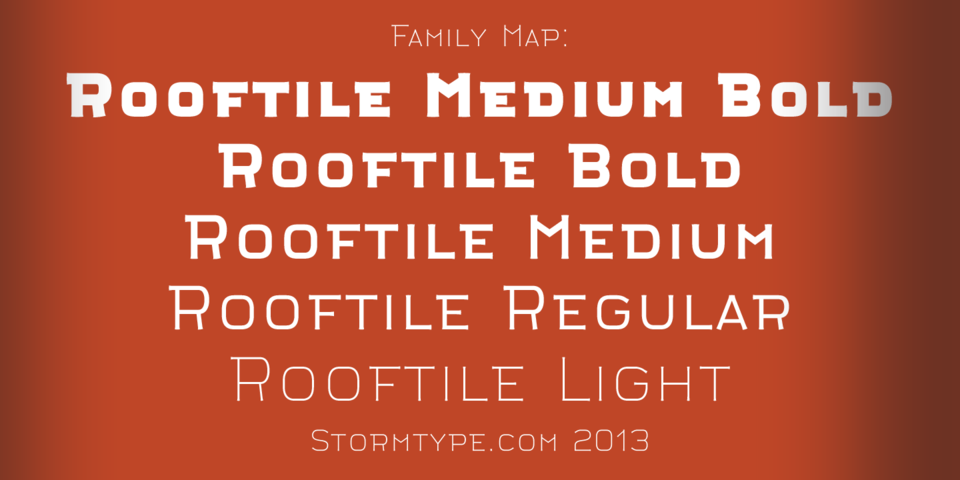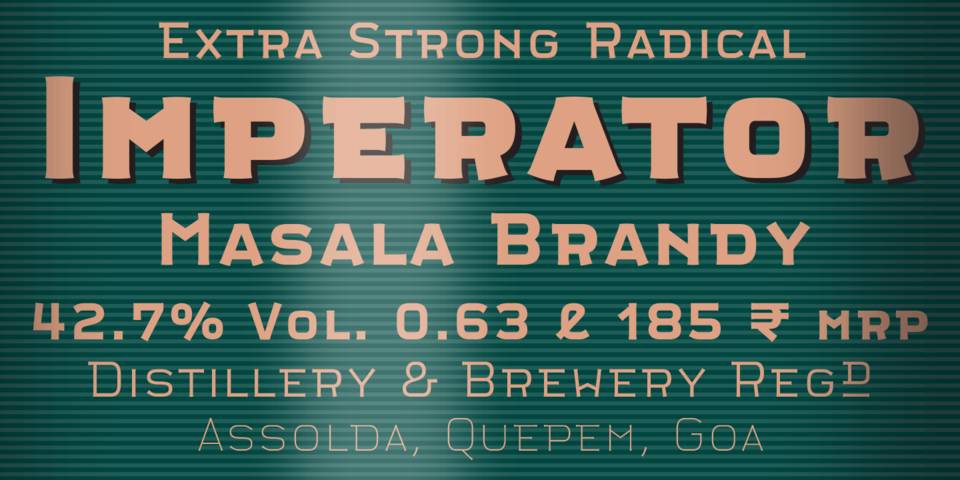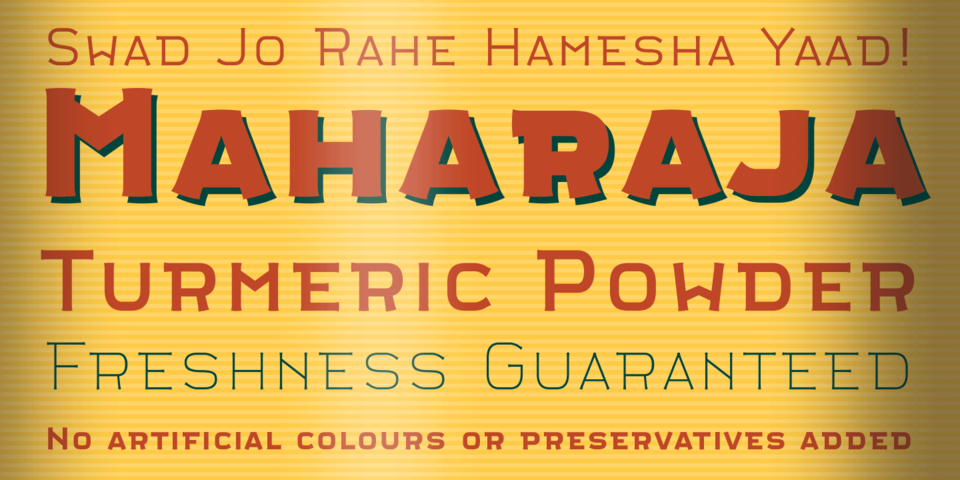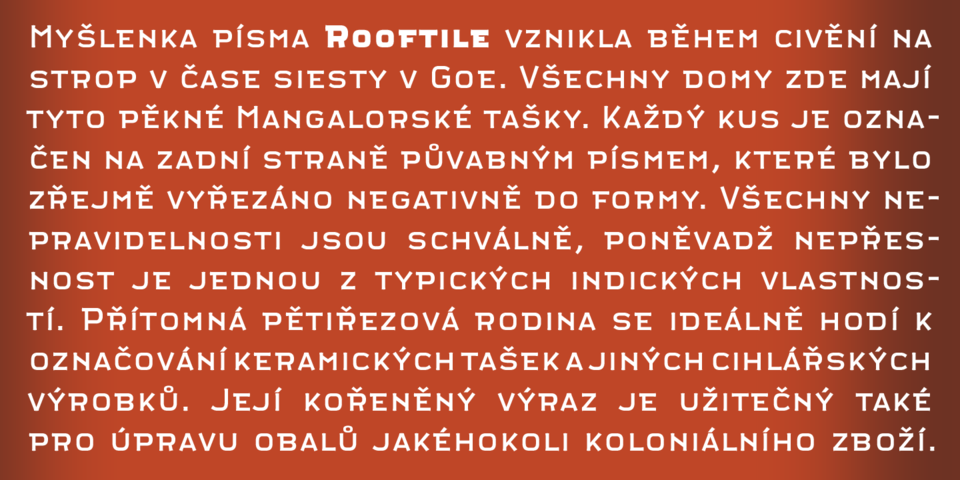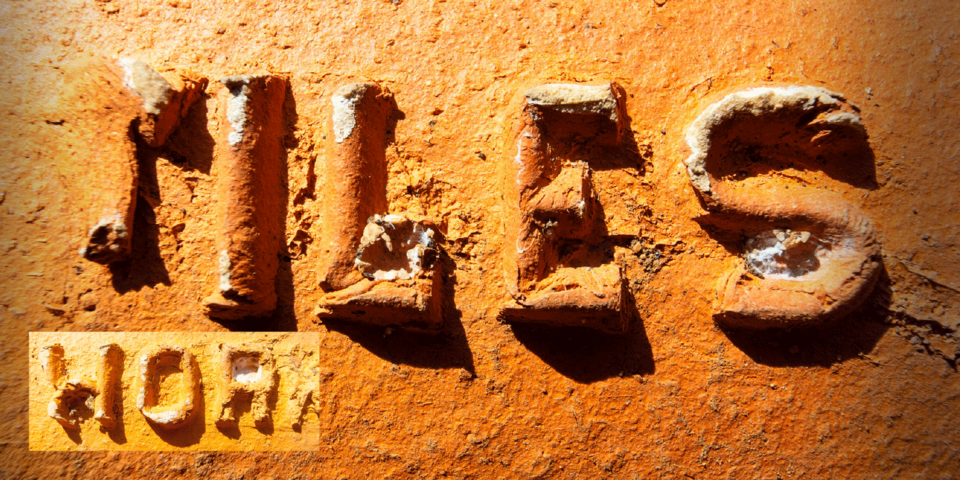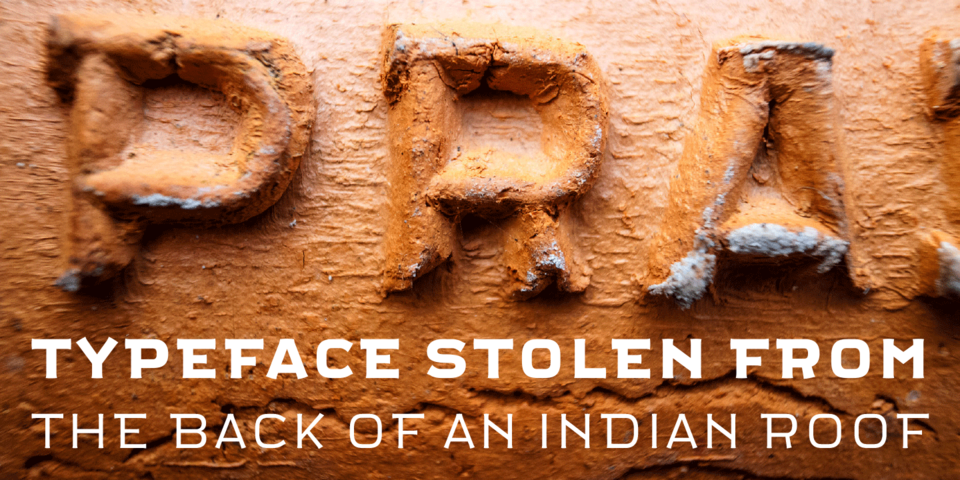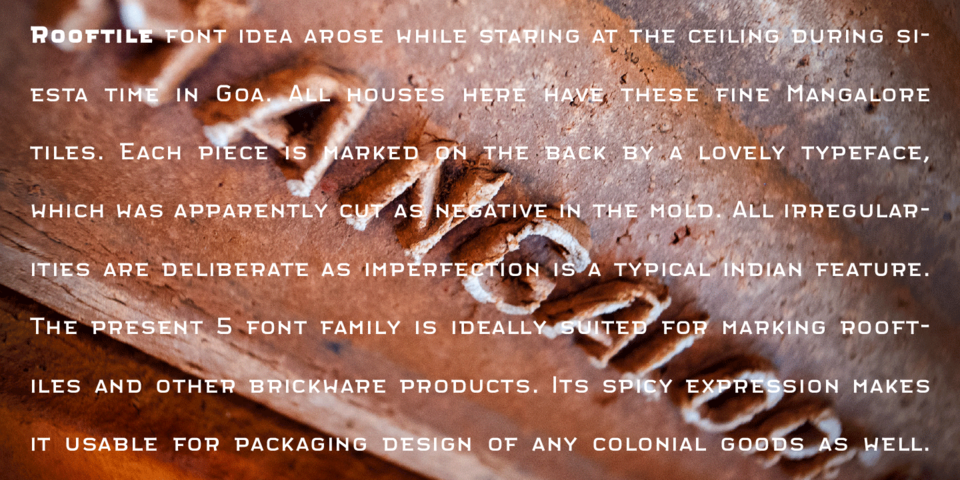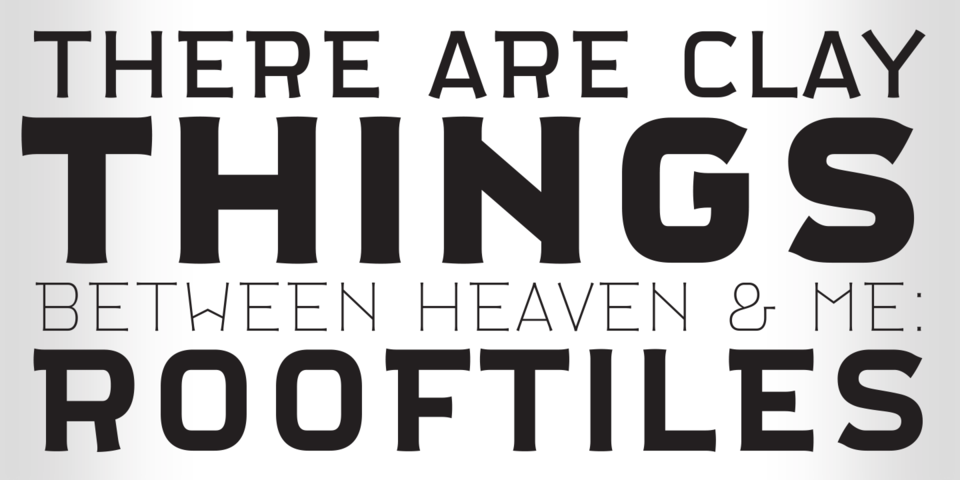
by František Štorm
Rooftile font idea arose while staring at the ceiling during siesta time in Goa. All houses here have these fine Mangalore tiles. Each piece is marked on the back by a lovely typeface, which was apparently cut as negative in the mold. All irregularities are deliberate as imperfection is a typical indian feature. The present 5 font family is ideally suited for marking rooftiles and other brickware products. Its spicy expression makes it usable for packaging design of any colonial goods as well.